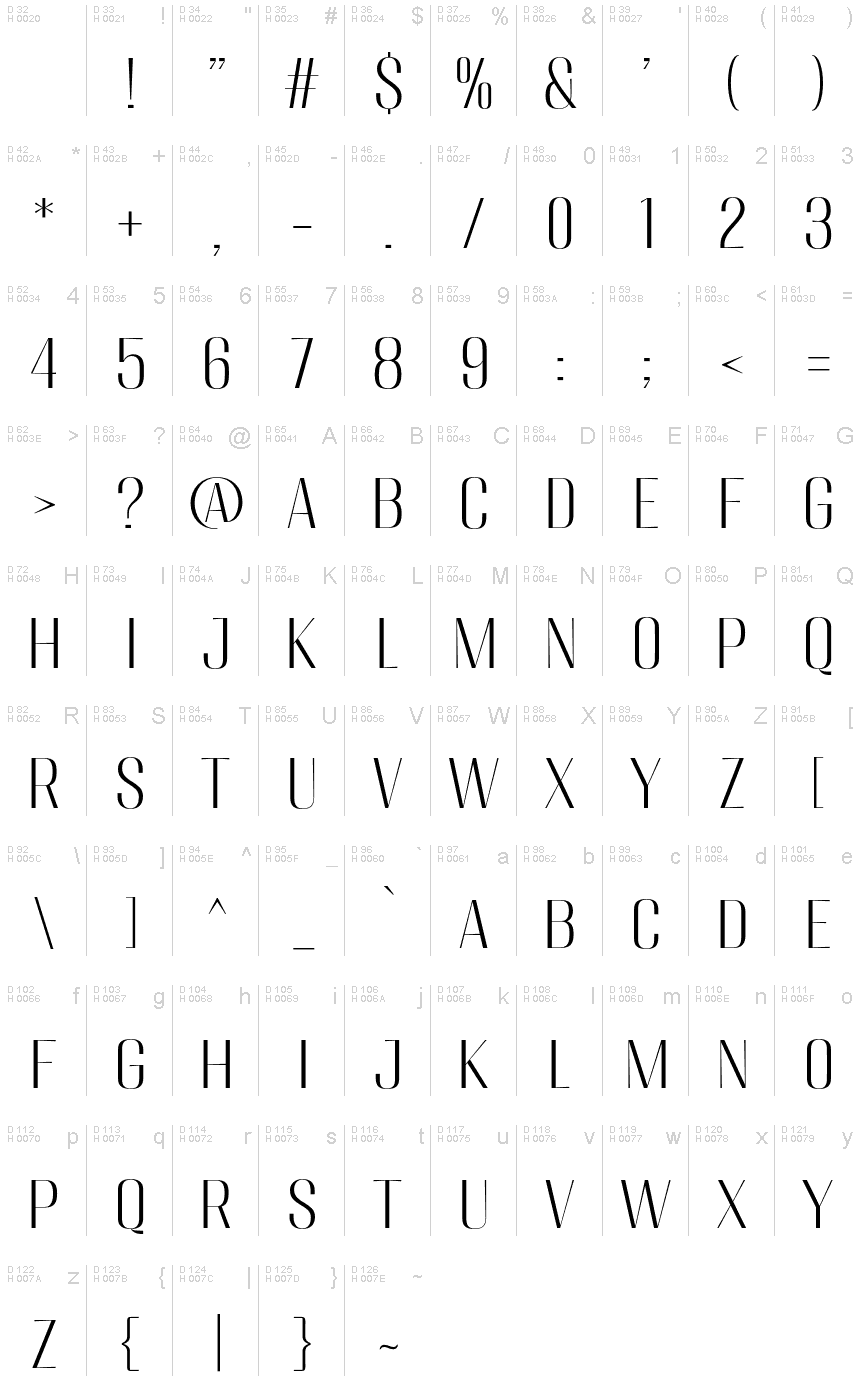
Migha-Light
Migha Light is a stunning sans serif font from the talented Seniors Studio. With its condensed width and light weight, Migha Light is perfect for sleek and modern designs that require a subtle touch of sophistication. This versatile font can be used for a variety of projects, from elegant logos and branding to clean and professional business materials such as brochures, presentations, and reports. Whether you're creating a minimalist website or designing eye-catching packaging for your products, Migha Light will help you achieve your vision with ease. Get creative with this versatile semi-condensed typeface!